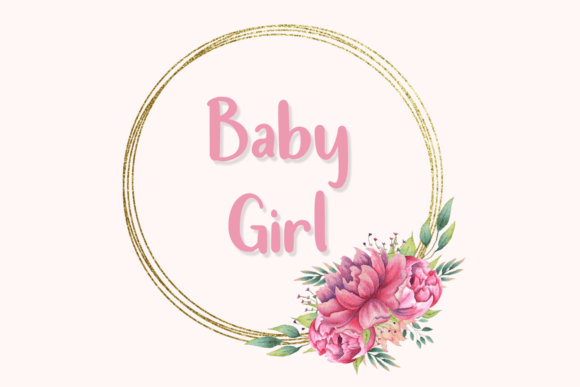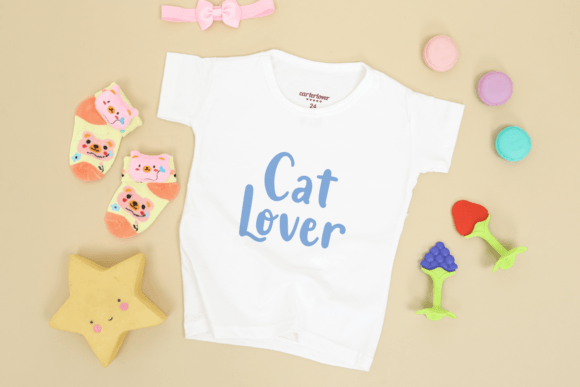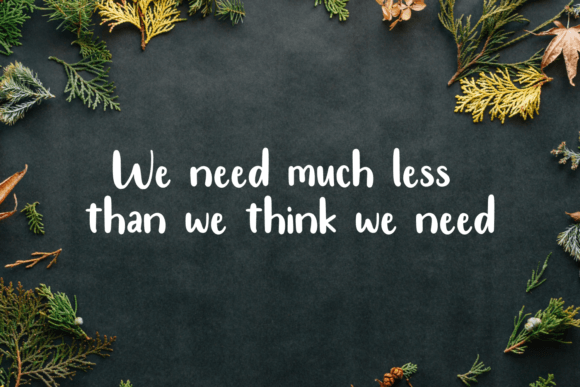
Introduction to Mochi Cakes Font
Have you ever been working on a creative project, pouring your heart and soul into it, only to feel like something’s missing? For designers, finding that perfect font can be the game-changer that elevates their work from good to great. That’s where Mochi Cakes Font comes in – a delightful display font that’s sure to add a touch of whimsy to any design.
With its cheerful personality, Mochi Cakes Font is the ideal design resource for anyone looking to add a bit of fun to their work. Whether you’re creating a logo, a social media graphic, or a promotional poster, this high-quality font is sure to make your design stand out. Plus, with a transparent background, you can easily customize it to fit your project’s unique style.
Key Features of Mochi Cakes Font
- Unique and playful design, perfect for creative projects and design resources.
- Available in 5 font styles, each with its own unique characteristics and flair.
Honest Review: Mochi Cakes Font
I recently stumbled upon the Mochi Cakes Font and I must say, it’s been a delightful addition to my design resource library. The font is perfect for creative projects that require a touch of whimsy and playfulness.
- ✨ High quality design that’s both modern and quirky.
- ✨ Great for creating a cohesive look for food-related branding and marketing materials.
However, I do have a few minor issues:
- ⚠️ The font doesn’t include a transparent background, which might be a limitation for some designers.
- ⚠️ Some characters might be missing, which could be a problem for those who rely heavily on this font for their creative projects.
Overall, the Mochi Cakes Font is a great choice for designers who are looking for a high-quality, free design resource. While it has its limitations, it’s definitely worth considering for creative projects that require a playful and modern touch.
Transparency and Layering
One of the unique features of the Mochi Cakes Font is its ability to be used with a transparent background. This makes it ideal for use in creative projects where you want to layer text over a background image or design.
To get the most out of the Mochi Cakes Font, be sure to experiment with different font sizes, colors, and layering techniques. You can also use the font in combination with other design elements, such as graphics and images, to create a high-quality and visually appealing design.
The Mochi Cakes Font is a versatile design resource that can be used in a variety of creative projects, including food blogs, recipe cards, and social media graphics. It’s also a great choice for anyone looking to add a touch of whimsy and personality to their design.
Alternatives to Mochi Cakes Font
1. Sugar Cookie Font
Sugar Cookie Font is a delightful, cursive script font perfect for baking-themed design projects, wedding invitations, and other creative ventures. It’s available for free download and offers a transparent background, making it ideal for overlaying on images. This font is ideal for those who want a more whimsical feel.
Compared to Mochi Cakes Font, Sugar Cookie Font has a more delicate and intricate design, making it suitable for projects that require a touch of elegance. However, it may not be as versatile as Mochi Cakes Font in terms of its uses.
2. Cream Puff Font
Cream Puff Font is a playful, handwritten font that’s perfect for food-related design projects, menus, and advertising materials. It’s available for free download and comes with a high-quality design that’s ideal for creative projects. This font is ideal for those who want a fun and casual feel.
Q: What is the recommended usage for the Mochi Cakes Font?
The Mochi Cakes Font is designed to be used in a variety of creative projects, including branding, packaging, and digital design. It’s perfect for projects that require a fun and playful style, and it can be used in combination with other fonts to create a unique and eye-catching design. The font is also suitable for use in social media, advertising, and other marketing materials.